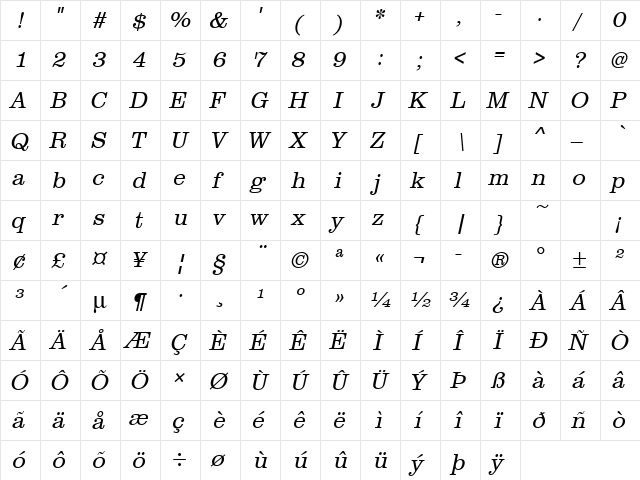
URWClarendonTLigNar Oblique Font Preview
URWClarendonTLigNar Oblique
Design Context for URWClarendonTLigNar Typeface
URWClarendonTLigNar combines the readability of serif typography with the visual weight of a slab construction, resulting in a typeface that feels both authoritative and approachable. The slanted form adds forward momentum and visual energy.
Suited to magazines, political campaign materials, bold packaging, and any setting where authority matters.